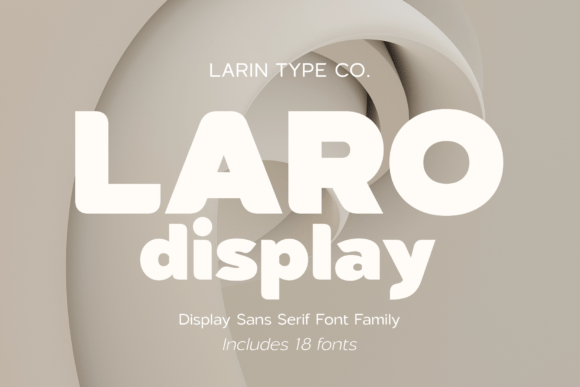
Laro Display: A Modern Sans Serif for Craft Creations
As a small shop owner who relies on typography to bring my handmade products to life, I’ve found that the right font can make all the difference. Laro Display is one of those fonts that stands out for its clean lines and versatile style. This modern sans serif font offers nine weights from thin to black and nine italic variations, making it perfect for a wide range of craft and product-based projects.
Elevating Handmade Labels and Stickers with Laro Display
Whether you're creating labels for your handmade candles or designing stickers for your boutique, Laro Display brings a professional look to your work. The font’s readability makes it ideal for small text, ensuring that even the tiniest label remains legible. I've used it for candle jar labels and found that the bold weights add a touch of sophistication, while the lighter styles keep things minimal and elegant.
The ability to switch between regular and italic styles adds variety without sacrificing consistency. For instance, using the italic version for decorative accents on product tags helps create visual interest while keeping the overall design cohesive.
Crafting Invitations and Wedding Stationery with Laro Display
Wedding invitations demand both beauty and clarity, and Laro Display delivers both in spades. Its modern aesthetic works well with farmhouse, minimalist, or contemporary themes. I’ve used it for wedding welcome boards and found that the font's clean structure complements floral or geometric designs beautifully.
For longer text like event details or RSVP information, the lighter weights ensure readability without overwhelming the eye. Pairing Laro Display with a script font for names or headings creates a balanced look that feels both personal and professional.
Designing Planner Pages and Digital Printables with Laro Display
As someone who creates digital printables, I appreciate how Laro Display adapts to different formats. It looks great on planner pages, calendars, and printable wall art. The font’s versatility allows me to use it for headers, dates, and short phrases without losing the charm or appeal of the design.
I often pair Laro Display with a more decorative script font for titles or highlights, which adds depth to the layout. This combination keeps the content readable while enhancing the visual storytelling aspect of the design.
Creating Product Packaging and Merchandise with Laro Display
Laro Display is an excellent choice for product packaging, especially when you want to maintain a consistent brand identity. Whether you’re designing packaging for mugs, shirts, or tote bags, this font provides a clean, modern look that appeals to a broad audience.
Its nine weight options allow for creative layering in mockups. For example, using a lighter weight for background text and a bolder weight for key product names or slogans creates a visually striking effect. I’ve used this technique for holiday product packaging, and it has helped elevate the perceived quality of the items.
Practical Tips for Using Laro Display in Craft Projects
When working with cutting machines like Cricut or Silhouette, it’s important to test Laro Display at different sizes to ensure it cuts cleanly. I recommend using the medium to bold weights for smaller stickers or signs to avoid issues with thin strokes.
For printed cards or tags, always preview the font in your chosen format before finalizing your design. The font’s clean edges and consistent spacing help maintain a polished appearance, which is crucial for customer appeal.
Font Pairing Ideas with Laro Display
Laro Display pairs well with a variety of other fonts. If you're going for a more playful look, try combining it with a handwritten or script font for headings or accents. For a more formal design, pairing it with a simple serif font can create a balanced and elegant composition.
Experimenting with these pairings allows you to customize your designs to match the theme or mood of your project. Always ensure that the contrast between fonts is clear enough to maintain readability, especially for longer text sections.
Incorporating Laro Display into your craft projects can transform the way your designs are perceived. From handmade labels to digital printables, this font offers a blend of style and functionality that appeals to both creators and customers alike. With its modern sans serif personality and wide range of weights, Laro Display is a must-have for any designer or maker looking to elevate their work.